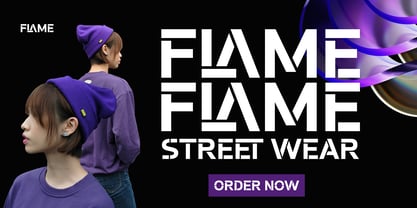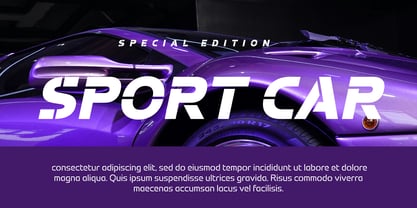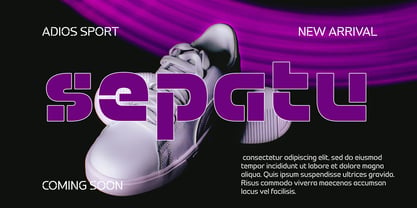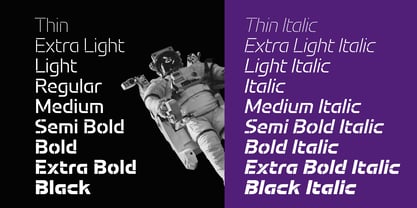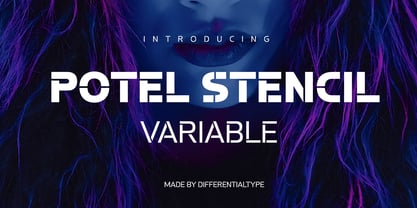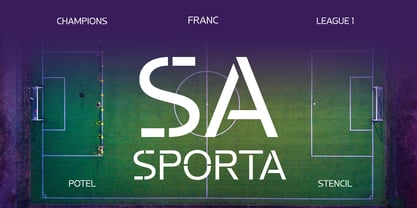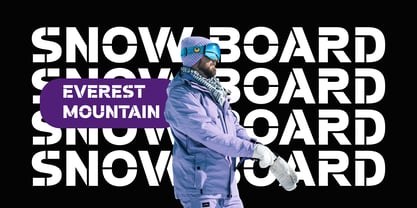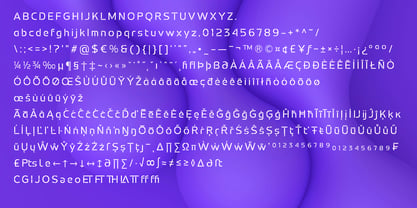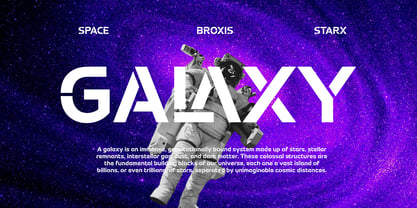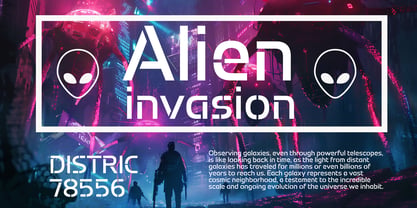
Potel Stencil Variable
by Differentialtype
The Potel Stencil Variable Font Family was designed by Sidik Sidik and published by Differentialtype. Potel Stencil Variable contains 1 styles. More about this family
Potel Stencil Variable is a modern font that blends a futuristic aesthetic with a strikingly unique cut-out feel. This font offers exceptional versatility for diverse design needs. Every character in Potel Stencil Variable is precisely crafted, featuring distinctive cuts that convey a sophisticated and high-tech impression, making it an ideal choice for innovative and daring designs.
The uniqueness of Potel Stencil Variable makes it highly suitable for displays such as posters, film promotions, album covers, logotypes, and product branding. This font isn't just a design tool; it's a powerful visual statement capable of grabbing attention and leaving a lasting impression. For designers seeking to combine modern clarity with a bold, cut-out nuance, Potel Stencil Variable is the perfect solution for creating unforgettable visual impact.
Designers: Sidik Sidik
Foundry: Differentialtype